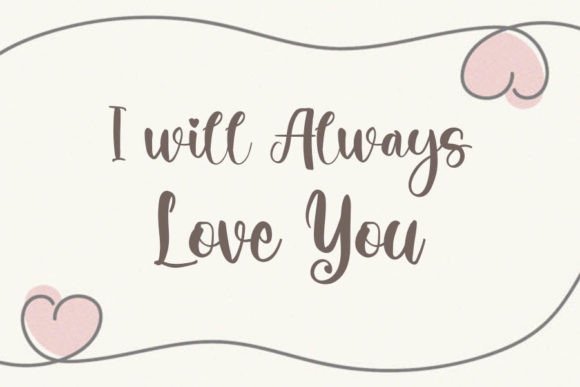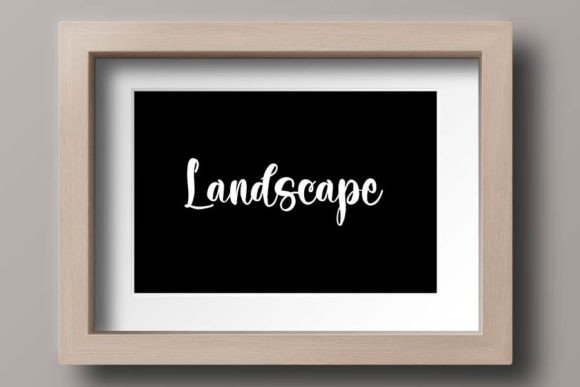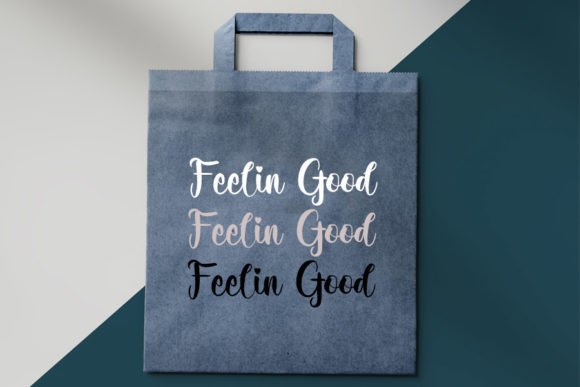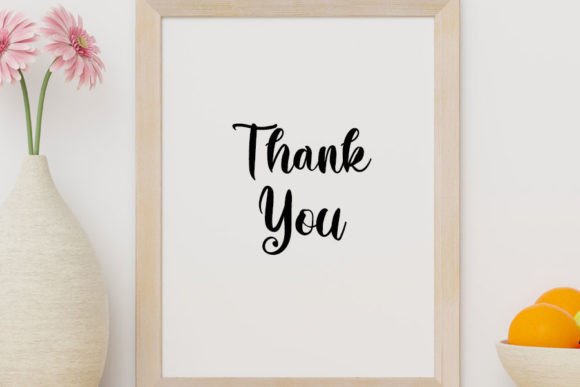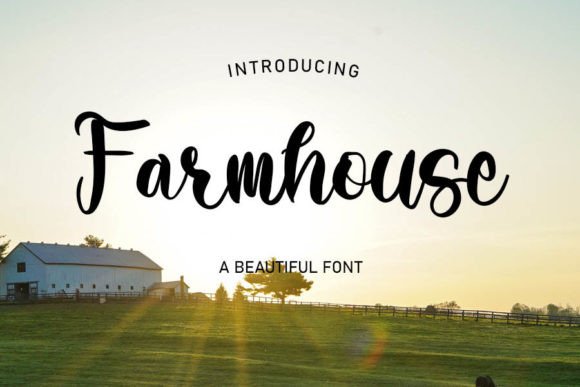
Discover the Charm of Farmhouse Font: Elevate Your Designs with a Fun and Friendly Handwritten Style
Are you looking for a font that can add a personal touch to your designs and make them stand out from the crowd? Look no further than the Farmhouse Font! This delightful handwritten font is perfect for designers and crafters who want to infuse their work with a sense of warmth, friendliness, and rustic charm. In this article, we’ll explore the unique features of Farmhouse Font and how you can use it to take your designs to the next level.
The Unique Charm of Farmhouse Font
Farmhouse Font is a one-of-a-kind handwritten font that exudes a sense of fun and friendliness. Its unique charm lies in its imperfect, yet endearing, lettering style that evokes the feeling of a handwritten note from a friend. The font’s rustic, homespun feel makes it perfect for designs that require a personal touch, such as wedding invitations, branding materials, and craft projects.
- Handwritten style: Farmhouse Font is a genuine handwritten font that captures the essence of personal, handwritten communication.
- Unique lettering: Each letter has its own distinct character, making your designs truly one-of-a-kind.
- Rustic charm: The font’s rustic feel adds a touch of warmth and coziness to your designs.
- Fun and friendly: Farmhouse Font is perfect for designs that require a playful, approachable tone.
How to Use Farmhouse Font in Your Designs
Farmhouse Font is incredibly versatile and can be used in a variety of design projects, including:
- Wedding invitations and stationery: Add a personal touch to your wedding invitations, save-the-dates, and other stationery with Farmhouse Font.
- Branding and packaging: Use Farmhouse Font to create unique and eye-catching branding materials, such as logos, business cards, and product packaging.
- Craft projects: Farmhouse Font is perfect for craft projects, such as handmade cards, gift tags, and DIY decor.
- Digital designs: Use Farmhouse Font in your digital designs, such as social media graphics, blog headers, and website elements.
Tips for Getting the Most Out of Farmhouse Font
To get the most out of Farmhouse Font, here are a few tips to keep in mind:
- Experiment with different colors: Farmhouse Font looks great in a variety of colors, so don’t be afraid to experiment and find the perfect hue for your design.
- Mix and match with other fonts: Combine Farmhouse Font with other fonts to create a unique and visually interesting design.
- Play with texture and patterns: Add texture and patterns to your design to give it an extra layer of depth and interest.
Farmhouse Font is a fun and friendly handwritten font that’s perfect for designers and crafters who want to add a personal touch to their work. With its unique charm, rustic feel, and versatility, Farmhouse Font is sure to become a staple in your design toolkit. So why wait? Get inspired by Farmhouse Font and start creating lovely designs that stand out from the crowd!